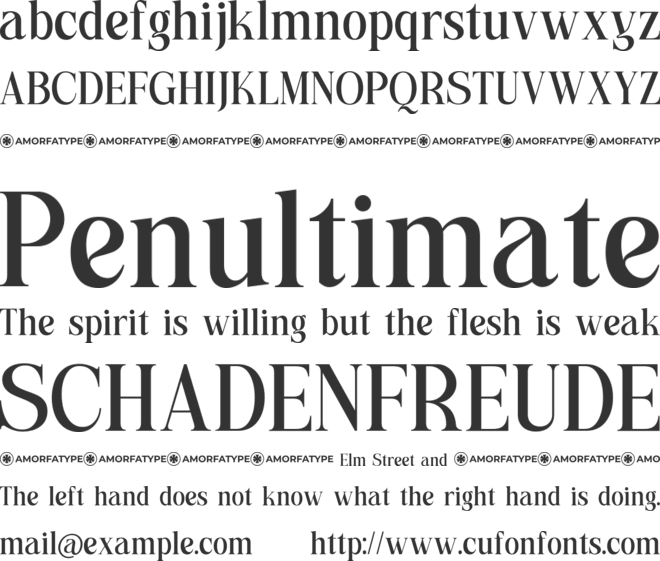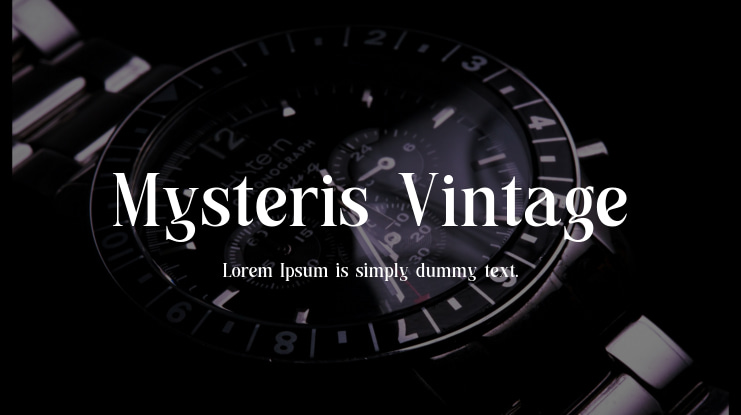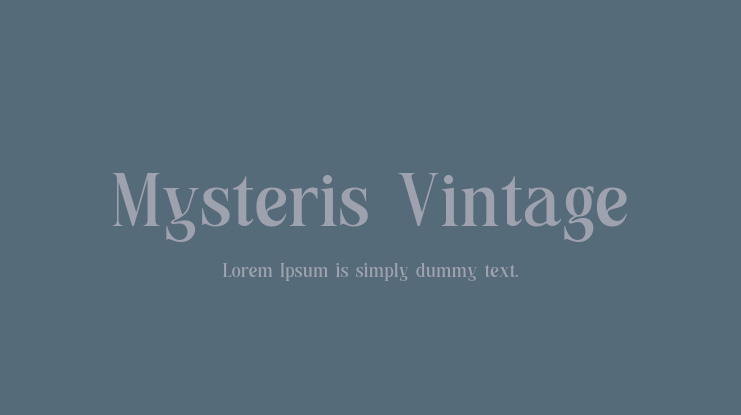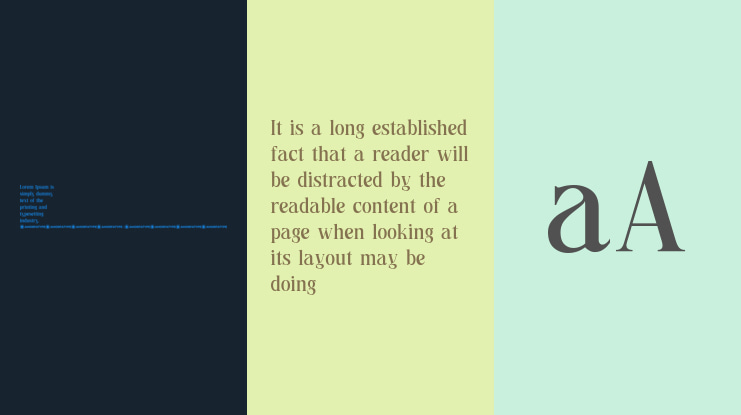
**Mysteris Vintage: A Modern Alternate Serif Font by Amorfatype**
Mysteris Vintage is a refined serif font that effortlessly combines vintage elegance with a modern twist. Featuring bold, distinctive serifs and intricate detailing, it evokes a sense of classic sophistication. Simultaneously, its modern alternates and carefully crafted design ensure both versatility and readability. Balancing the charm of yesteryears with a forward-thinking spirit, Mysteris Vintage is ideal for high-end branding, editorial design, or any project requiring refinement and charm.
Each character is designed thoughtfully to maintain harmony between traditional serif styles and modern versatility. This makes it perfect for use in luxurious logos, upscale packaging, and elegant print layouts. Mysteris Vintage captures the nostalgia of the past while keeping a fresh, contemporary appeal, elevating your creative projects to new levels of sophistication.